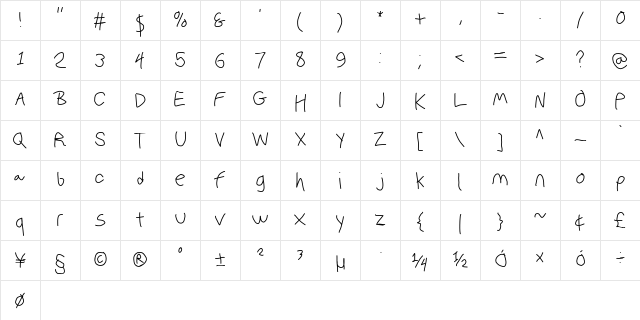
PolanWritings Regular Free Font
PolanWritings Regular
Foundry: Cannot Into Space Fonts
Designer: Robert Jablonski
Design Context for PolanWritings
PolanWritings is a composed and adaptable typeface that performs quietly and consistently across a wide range of design contexts.